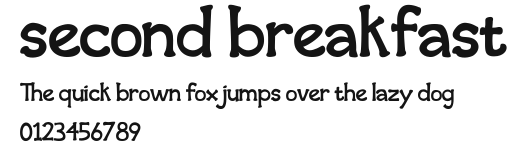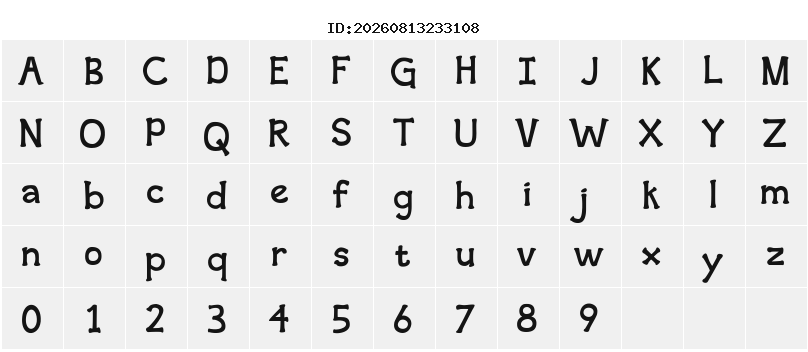
• Font Name: second breakfast
• Font ID: BrittneyMurphy: second breakfast: 2011
• Full Font Name: second breakfast
• PostScript Name: secondbreakfast
• Character Count: 205
• Designer: Brittney Murphy
• Manufacturer: Brittney Murphy
About second breakfast.ttf
second breakfast.ttf is a modern, elegant sans-serif font designed for ultimate readability and visual harmony. Perfect for branding, headlines, web design, and print materials.